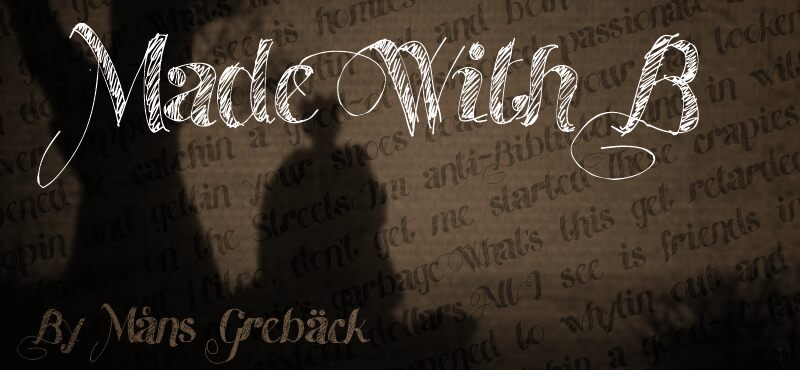
Made With B by Måns Grebäck is a free eroded display font with a restless, hand-drawn finish. Tall, looping letters combine uneven outlines, scratchy hatched shadows, and stray hairline strokes that wander beyond the main shapes.
Themes of sketching, notebooks, and improvised art make it useful for music posters and independent magazine covers. It can also turn fashion packaging or event graphics into something that resembles an unfinished marker study. The likely audience is youthful, arts-oriented, and comfortable with lettering that shows every wobble and correction.